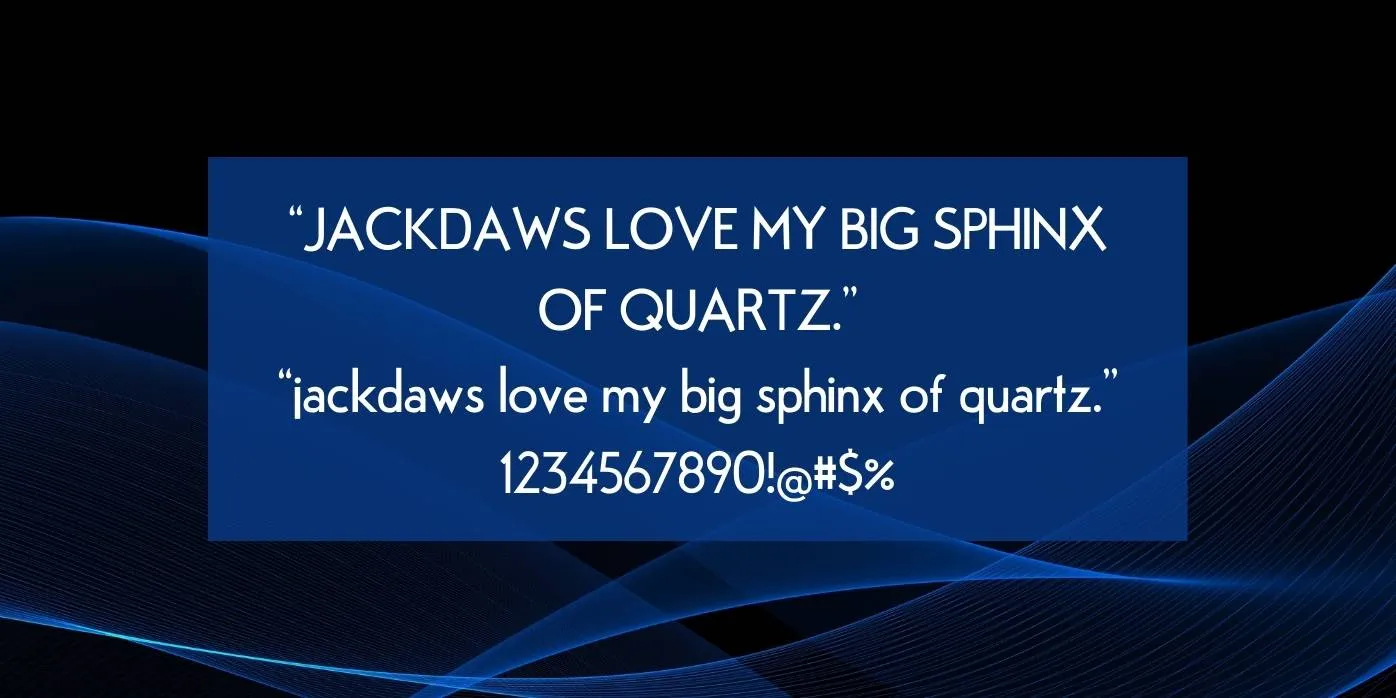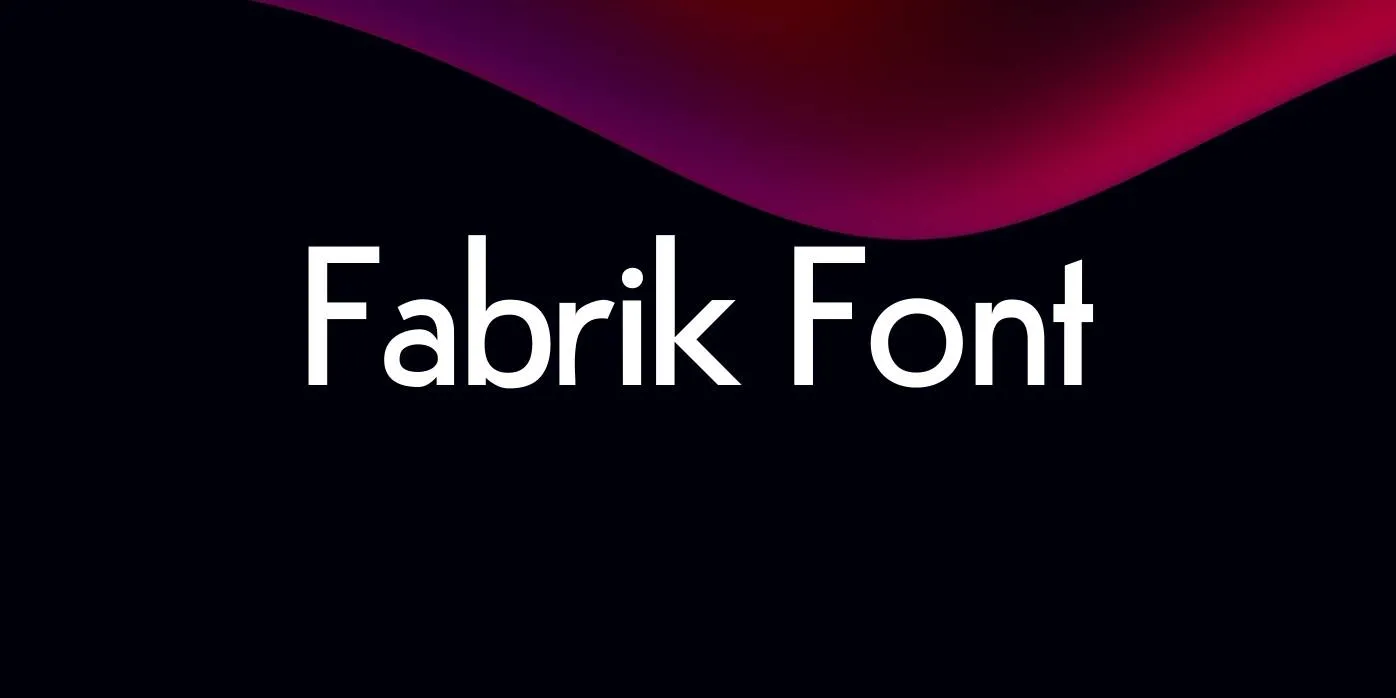
Fabrik Font
Today, we present Fabrik Font which belongs to the sans serif family. This typeface was designed by Fabian Fohrer of Tightype. The fonts are available in three weights—light, regular, and bold. The light and regular weights have oblique cuts, while the Fabrik Bold weight is a true italic.
This modern sans serif typeface has a geometric structure with rounded corners. The letters ‚Äòa’s and ‚Äòe‚Äô are the only ones that don‚Äôt follow this rule. Fabrik Font was designed to be used for both digital and print applications. It works great for headlines, logos, and short paragraphs of text.